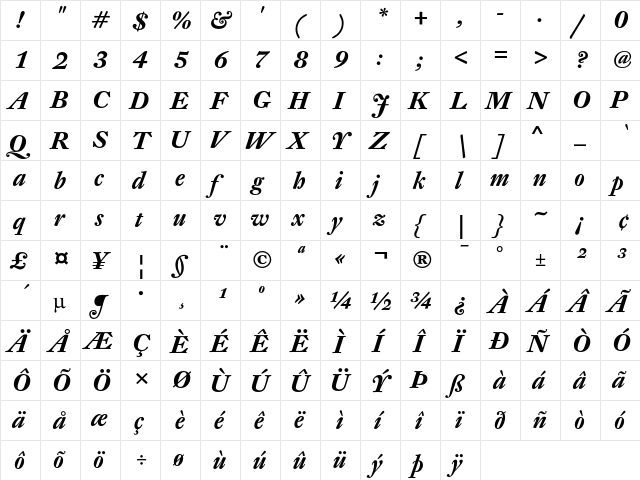
DTL Fleischmann Display Bold Italic Font Preview
Design Context for DTL Fleischmann Display Typeface
DTL Fleischmann Display is built around its visual character rather than neutral utility — its distinctive forms are designed to make an impression at display sizes. The dynamic lean of this cut emphasises speed and emphasis in any layout. The heavy weight commands attention and anchors typographic hierarchies.
Font Pairing: Pair with a clean neutral sans-serif for body copy to let DTL Fleischmann Display's character lead without overwhelming the composition.
Pro Tip: Treat DTL Fleischmann Display as the centrepiece of your typographic hierarchy. One strong heading set in a decorative face can carry an entire layout.